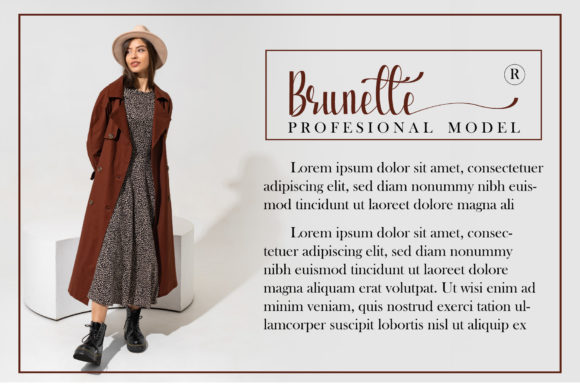
Orletta Font
db-ku.com - Script & Handwritten -- Orletta is a free-flowing script font created for packaging products, invitation cards, flyers, mockups, event posters, and anything else that needs a high-quality vibe. It has a beautiful and balanced character, which goes well with the large design pool.